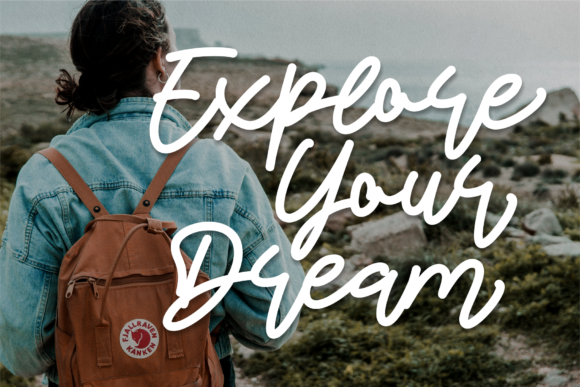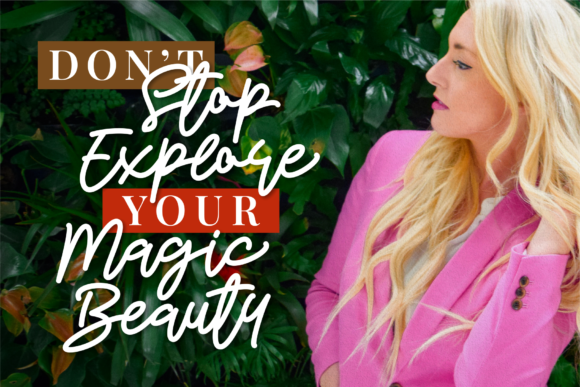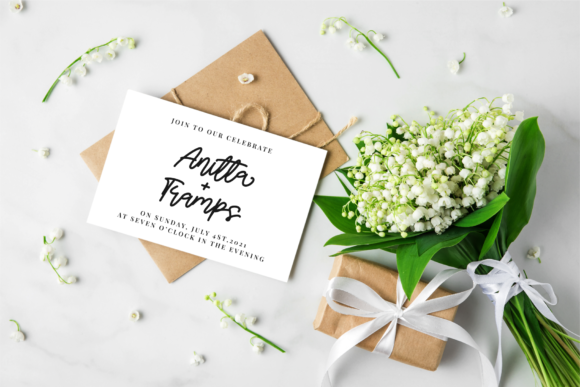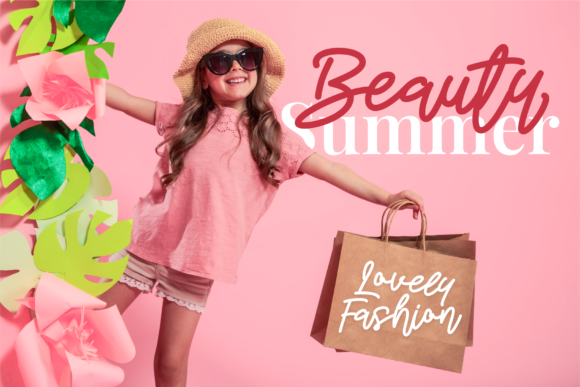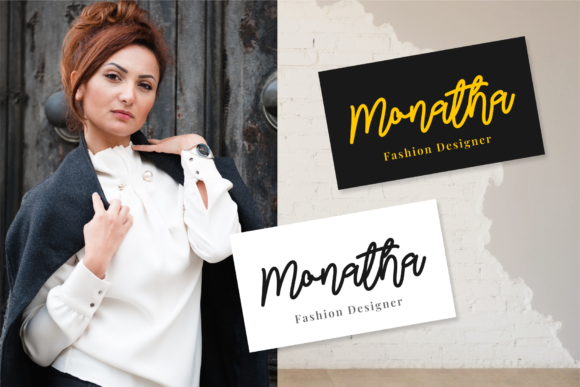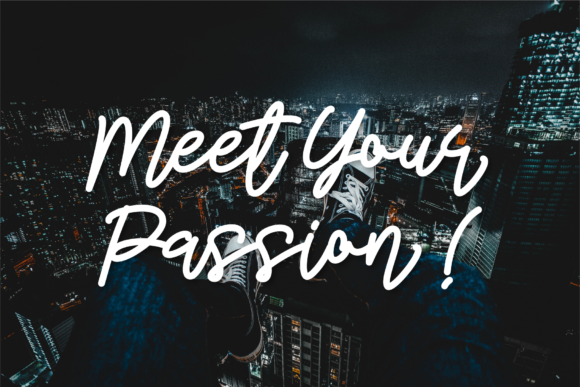
Introduction to Rully Siruna Font Font
Fonts play a crucial role in design, and the Rully Siruna Font font is a typeface that brings both character and versatility to any project. Whether you’re working on a branding project, a website, or a print design, the Rully Siruna Font font offers a unique style that can elevate your work.
Rully Siruna is a simple and flowing handwritten font.
This adaptable font will look great on a variety of design ideas Rully Siruna is PUA encoded which means you can access all of the glyphs and swashes with ease.
The Rully Siruna Font font is more than just a typeface – it’s a design tool that helps you communicate your message with style and clarity. Its unique character set and versatile design make it suitable for a wide range of applications, from elegant invitations to bold headlines.
With its carefully crafted letterforms and balanced proportions, the Rully Siruna Font font ensures readability and visual appeal across all mediums.
The Rully Siruna Font font stands out with its unique design, exceptional readability, and versatility across various design applications.